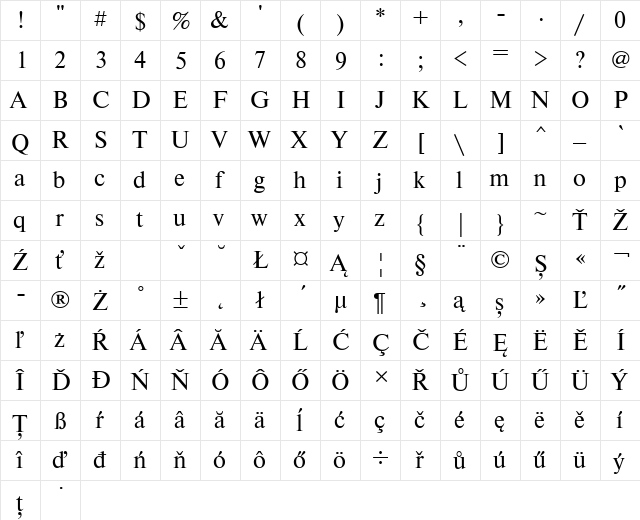
NewtonETT Regular Font Preview
NewtonETT Regular
Design Context for NewtonETT Typeface
NewtonETT is a composed and adaptable typeface that performs quietly and consistently across a wide range of design contexts.